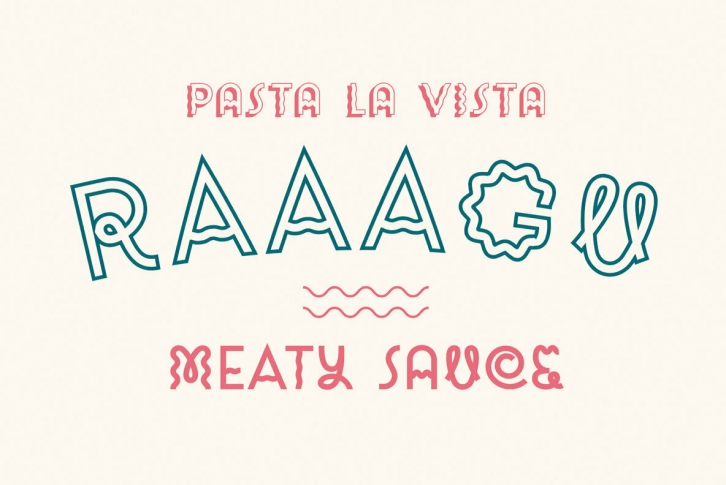
Raaagu is a super saucy new font. Wobbly and random, wiggly and quirky. It's perfect for cool new branding (meaty or plant based), new food packaging or bold poster work.